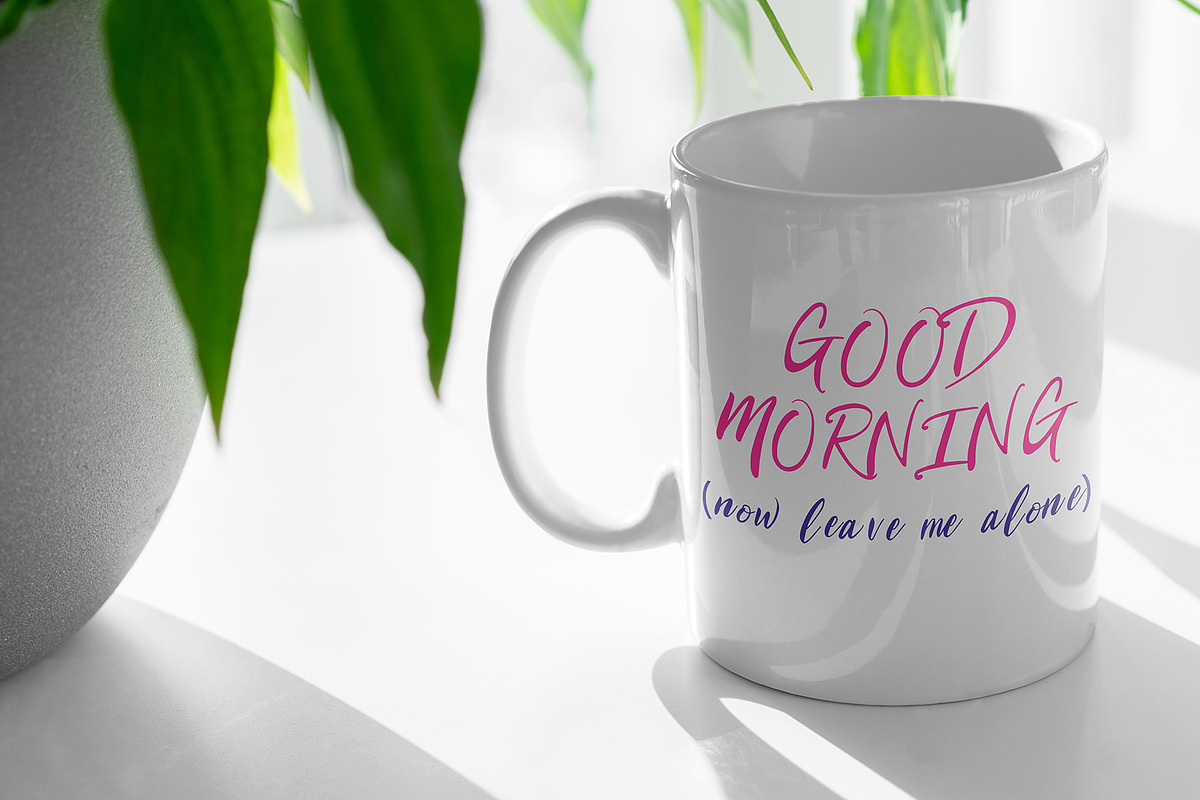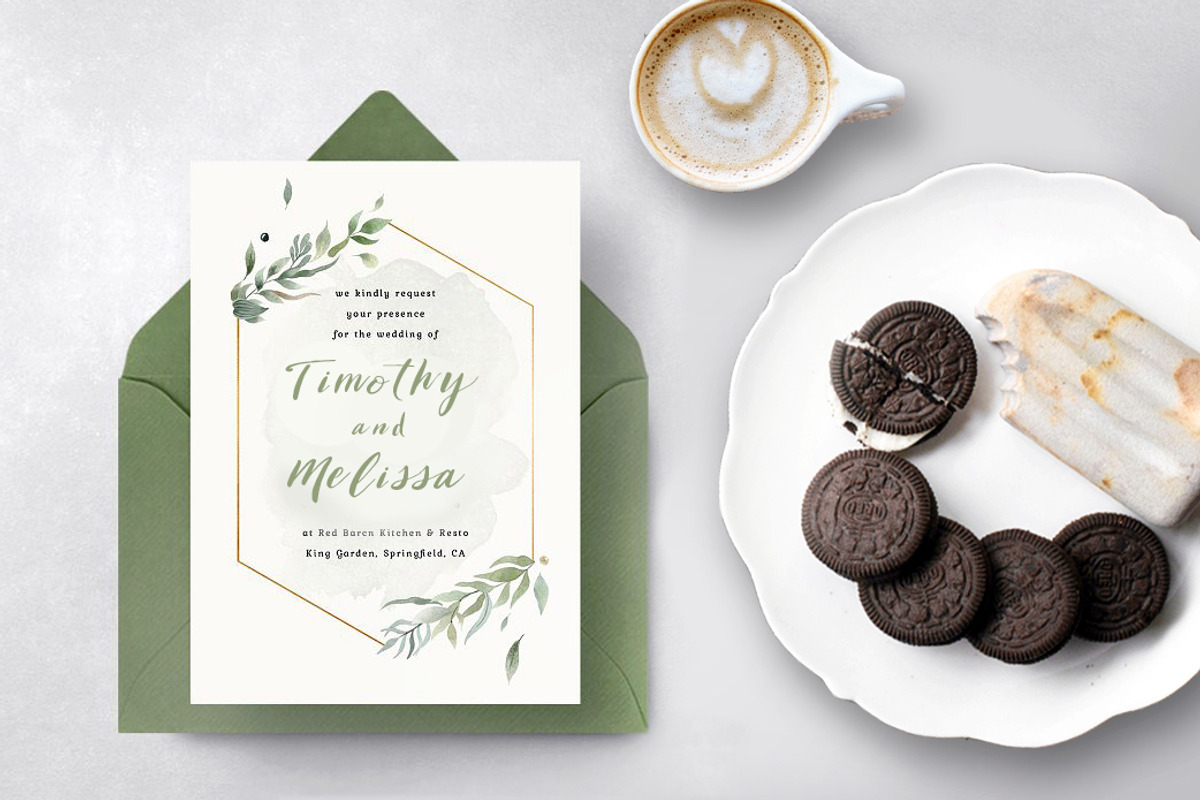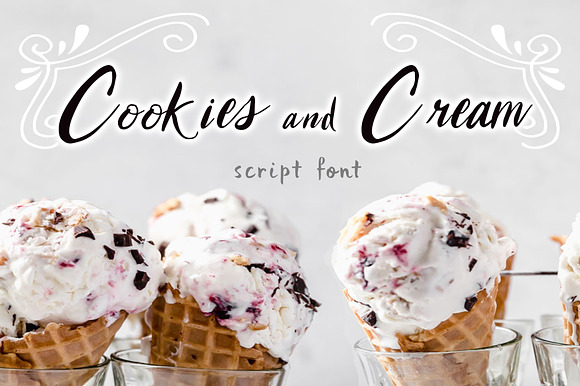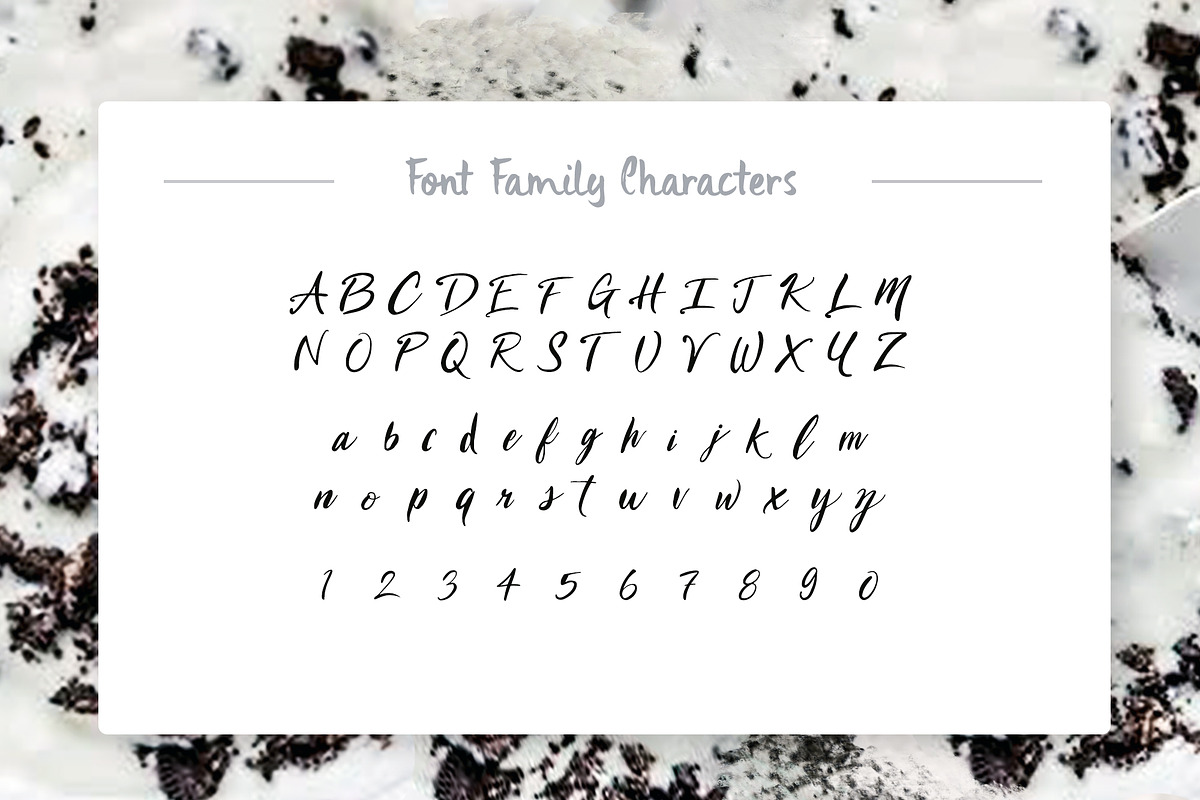
Cookies and Cream Script Font
A handwritten script font containing upper & lowercase characters, numerals, and basic punctuation.
Cookies and Cream Script Font by Lindsey Gill Graphics fits naturally into Branding, posters, packaging, typography.